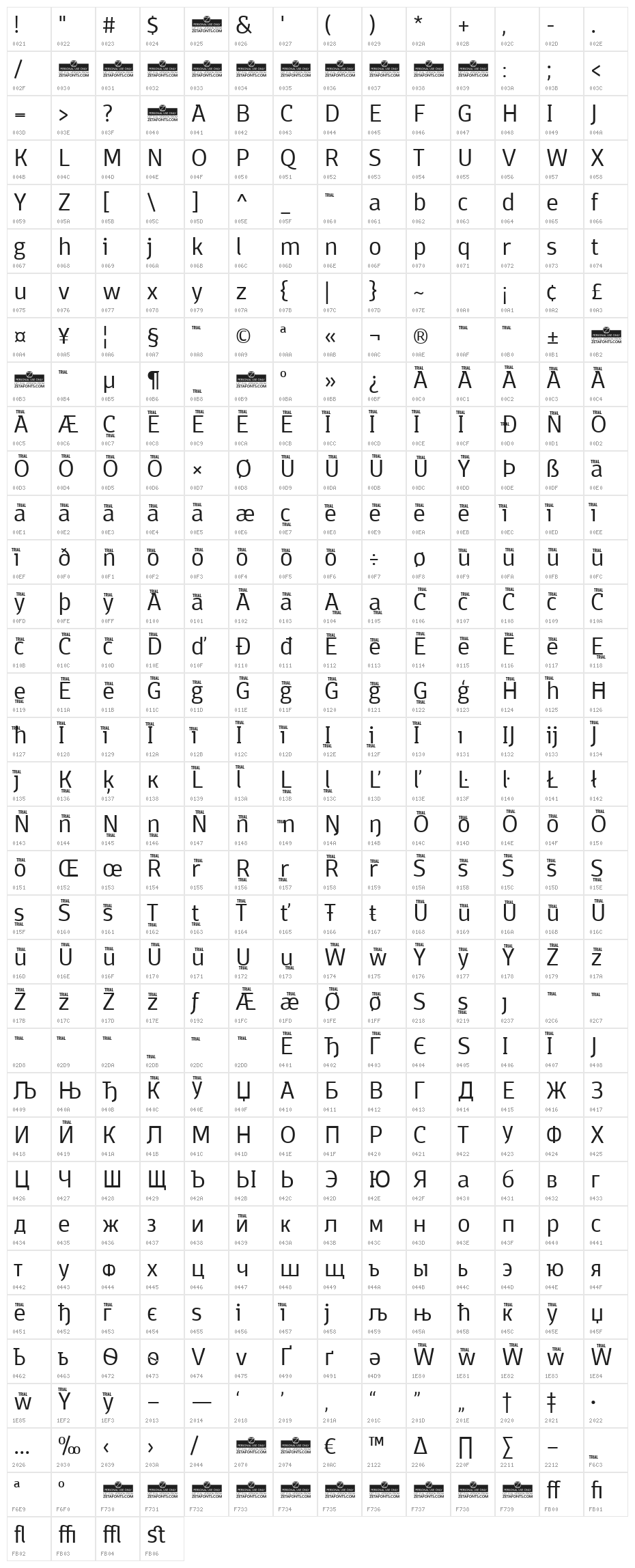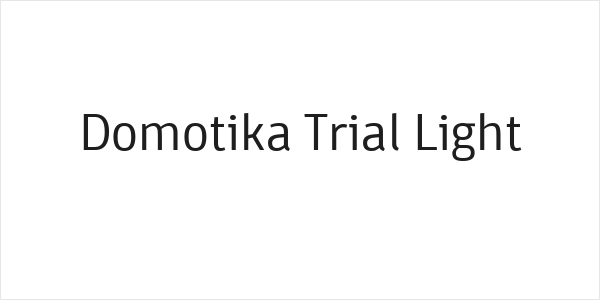
Domotika Trial Light Font
Domotika Trial Light Description
This font features a clean and modern sans-serif style with a geometric structure. The characters are well-balanced, offering a harmonious appearance that is both professional and approachable. The uppercase letters are bold and assertive, while the lowercase letters maintain a friendly and open feel. The numerals are clear and easy to read, making them suitable for a variety of applications. The special characters are designed with simplicity in mind, ensuring they integrate seamlessly with the rest of the typeface. Overall, this font exudes a sense of clarity and precision, making it ideal for contemporary design projects.
| Proposed Projects | Ideal for corporate branding, web design, editorial layouts, and signage. |